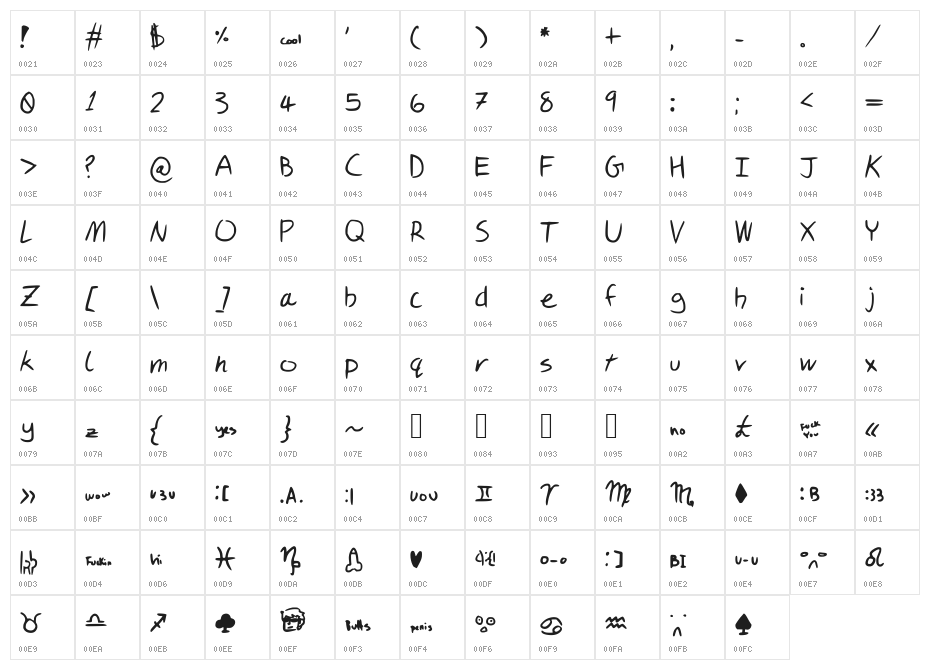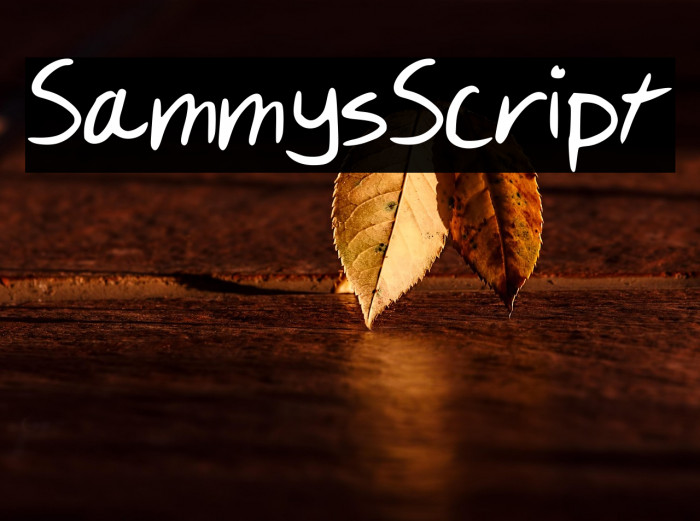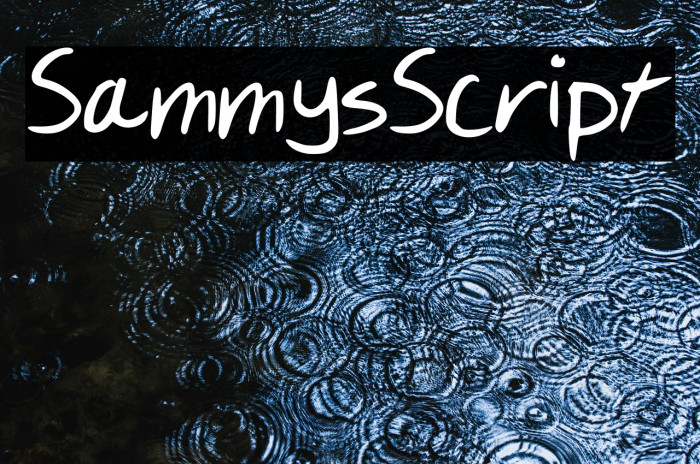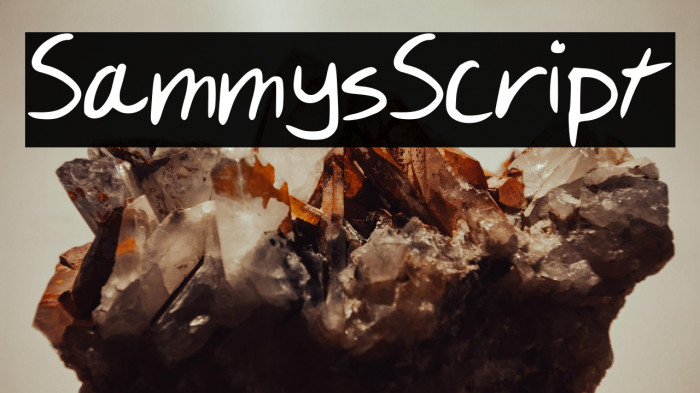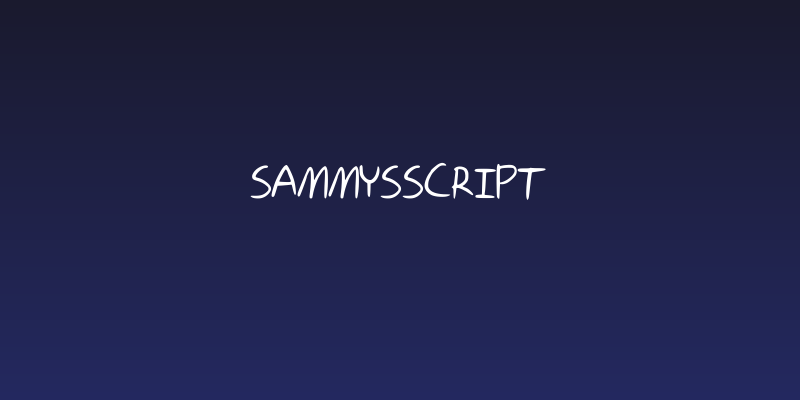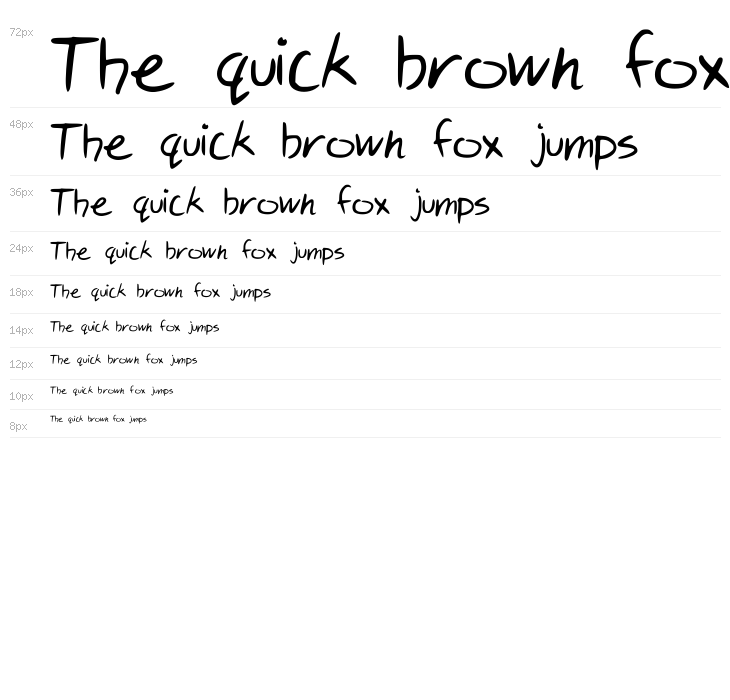
SammysScript Font
SammysScript Description
This font exudes a casual and playful handwritten style, characterized by its smooth, flowing strokes and slightly irregular letterforms. The uppercase and lowercase letters maintain a consistent style, with rounded edges and a friendly appearance. The numbers and special characters complement the alphabet with a similar informal and approachable design. The overall look is reminiscent of a personal note or a casual script, making it ideal for projects that require a touch of personality and warmth.